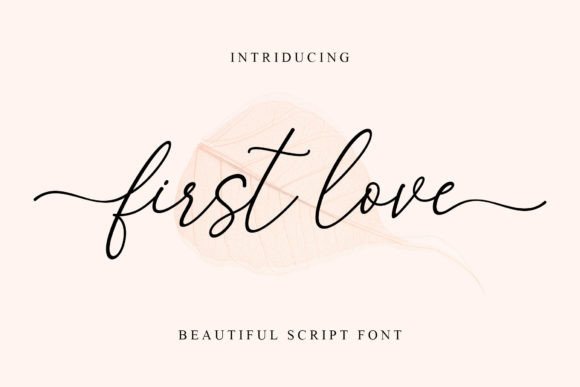
Are you ready to take your designs to the next level? Look no further than First Love Font, the best font for logo design in 2017. Created by MJB Letters, this charming and modern script font is specifically designed for creative individuals like you who want to add a personal touch to their designs.
First Love Font is the perfect choice for various design projects, whether you're creating wedding invitations, social media posts, logos, or any other project that requires a touch of elegance and sophistication. Its smooth and flowing letterforms create a unique and playful character set that will instantly bring your designs to life.
When you download First Love Font, you're not just getting a font – you're unlocking a world of design possibilities. Let's explore why this font is a must-have for any creative:
1. Unleash your creativity: With First Love Font, you have endless opportunities to express your unique style. Its captivating and emotional design will inspire you to create stunning and memorable designs that will leave a lasting impression on your audience.
2. Stand out from the crowd: In today's competitive market, it's crucial to differentiate yourself from others. First Love Font will help you do just that. Its eye-catching and distinctive style will make your designs instantly recognizable and set you apart from the competition.
3. Timeless elegance: First Love Font combines modernity with timeless elegance. It's a font that will never go out of style, making it a wise investment for your design projects. Whether you're creating a logo for a new brand or designing wedding invitations that will be cherished for years to come, First Love Font will add a touch of sophistication that will stand the test of time.
4. Easy to use: Don't worry if you're not a design expert – First Love Font is user-friendly and easy to work with. Its smooth and flowing letterforms ensure a seamless integration into your designs, saving you time and effort.
5. Versatility at its best: While First Love Font is perfect for logo design, its versatility extends far beyond that. Use it for social media posts, website headers, packaging design, and so much more. Let your imagination run wild and explore the endless possibilities this font has to offer.